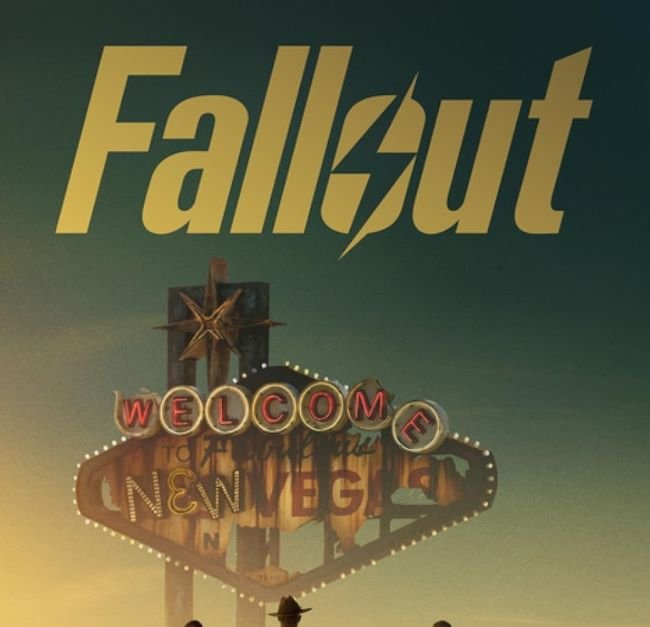
Fallout font — a custom typeface inspired by Overseer, with its roots in mid-twentieth-century American industrial lettering — is the typography of a world that stopped progressing technologically in 1950 and then had an apocalypse, leaving a post-nuclear landscape littered with the graphic language of the era: Atomic Age optimism rendered in thick, slightly rounded sans-serif strokes that still read “VAULT-TEC CORPORATION” on crumbling concrete walls and rusted signage decades after the bombs fell. The Amazon Prime adaptation of the beloved game series carried this retro-futurist typographic identity from games to screen with impressive fidelity, understanding that the font is as much a part of the Fallout universe as the bottle caps and the Pip-Boys. The freely available Fallout Font channels this irresistibly bleak midcentury Americana.